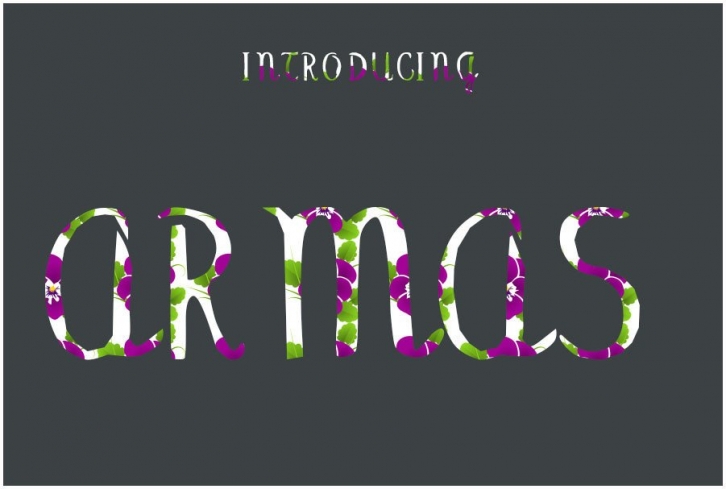
A lovely script bold font with natural shades will give a touch of beautiful flow to any design idea! it is perfect for designing your own brand and for other designs, these letters look perfect on all printing techniques, foil emboss, embroidery, and others.